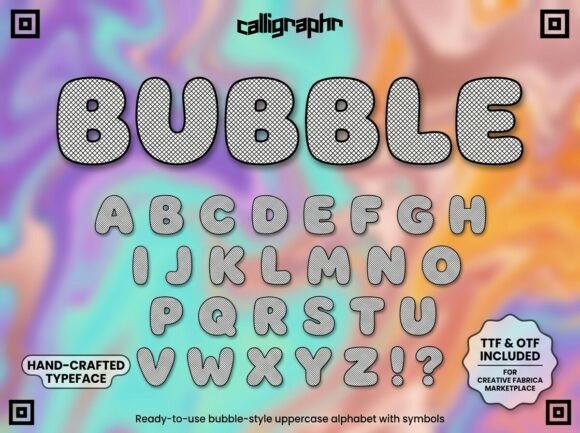
Introducing Bubble Font: The Ultimate Playful Textured Display Font
Are you tired of using the same old flat and ordinary cartoon typefaces in your graphic compositions? Look no further! Bubble font is here to pack a heavy, high-energy punch of playful texture into your designs. This ultra-chunky lettering font is perfect for designers and crafters who want to add a touch of fun and whimsy to their projects.
What Makes Bubble Font Stand Out?
Bubble font breaks away from the norm with its massive, plump rounded characters outlined with a crisp black drop-contour. But what truly sets it apart is its dense internal grid structure, filled entirely with an intricate mesh pattern. This unique feature gives words an immediate, touchable pop-art dimension that is sure to grab attention.
Perfect for Playful Designs
Bubble font is a top-tier centerpiece for any playful design project. Its bold and eye-catching style makes it perfect for:
- Playful mobile game titles that need to stand out on the app store
- Custom Cricut and Silhouette vinyl sticker prints that require a fun and quirky touch
- Children’s book layouts that need a playful and engaging font
- Sweet candy packaging labels that require a fun and colorful design
- School planner headers that need to add a touch of personality
- Energetic streetwear merchandise graphics that require a bold and eye-catching font
Key Features of Bubble Font
Bubble font has several key features that make it a must-have for designers and crafters:
- Ultra-chunky lettering with massive, plump rounded characters
- Crisp black drop-contour outlining for added depth and dimension
- Dense internal grid structure filled with an intricate mesh pattern
- Playful and textured design that adds a touch of whimsy to any project
Tips for Using Bubble Font
Here are some tips for using bubble font in your designs:
- Use it as a statement piece: Bubble font is bold and eye-catching, so use it as a statement piece in your design. Pair it with simpler fonts to create contrast and visual interest.
- Experiment with colors: Bubble font looks great in bright and bold colors, but it can also be used in more subtle colors to create a softer look.
- Play with texture: Bubble font has a unique textured design, so experiment with different textures and patterns to add depth and interest to your design.
Bubble font is a unique and playful textured display font that is perfect for designers and crafters who want to add a touch of fun and whimsy to their projects. Its bold and eye-catching style makes it perfect for a wide range of design projects, from playful mobile game titles to custom vinyl sticker prints. With its ultra-chunky lettering, crisp black drop-contour, and intricate mesh pattern, bubble font is sure to pack a heavy, high-energy punch of playful texture into your graphic compositions.
Get Ready to Make a Statement with Bubble Font